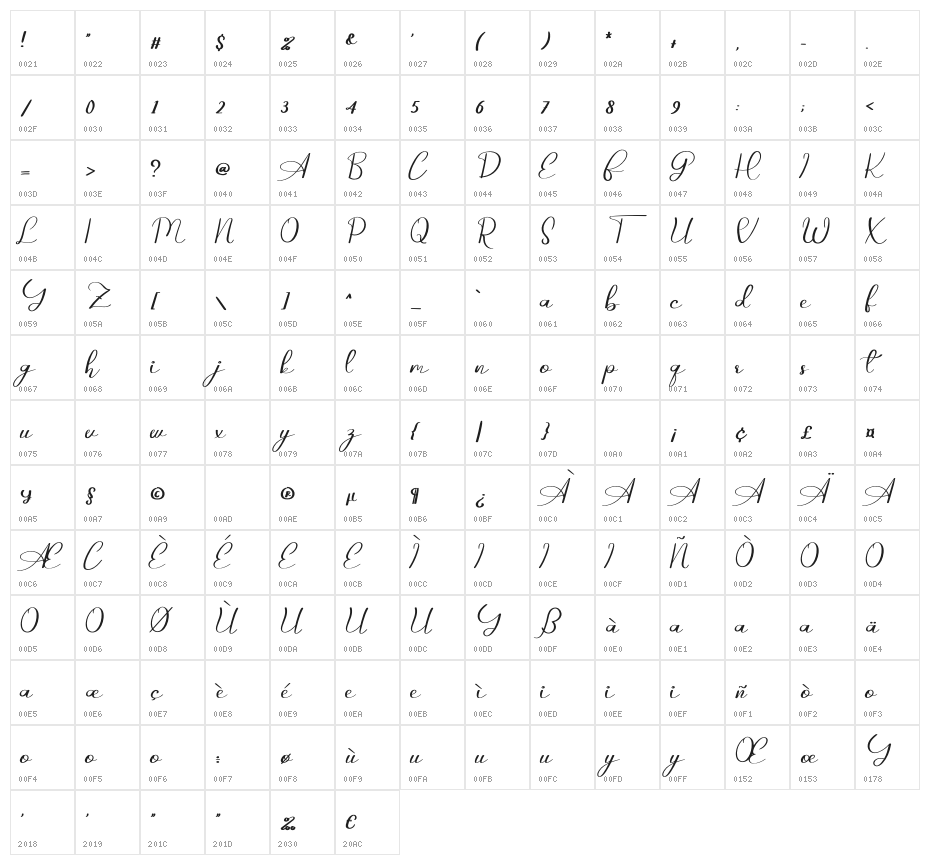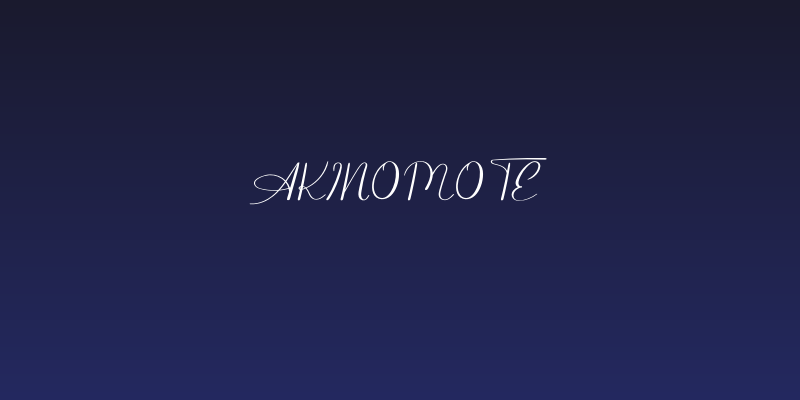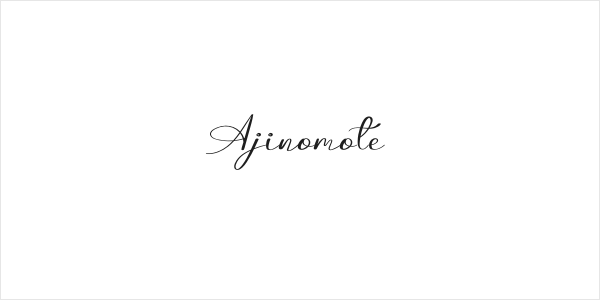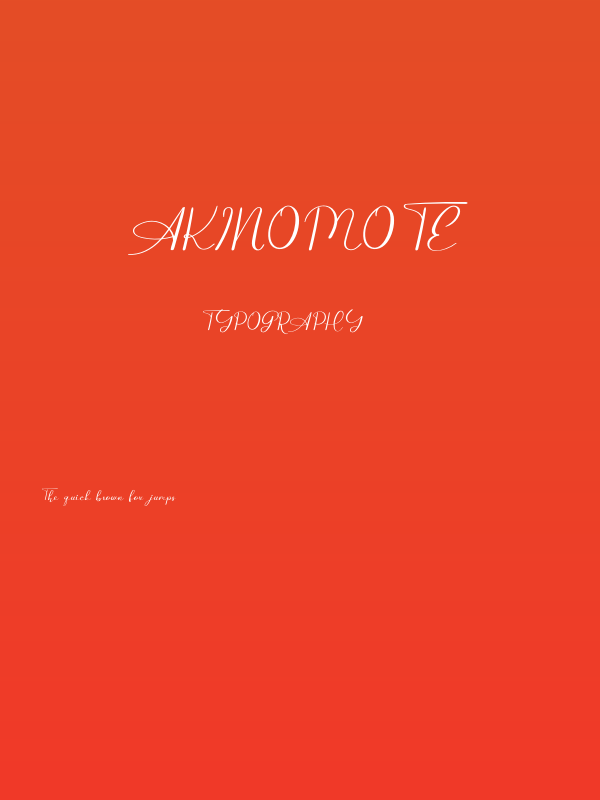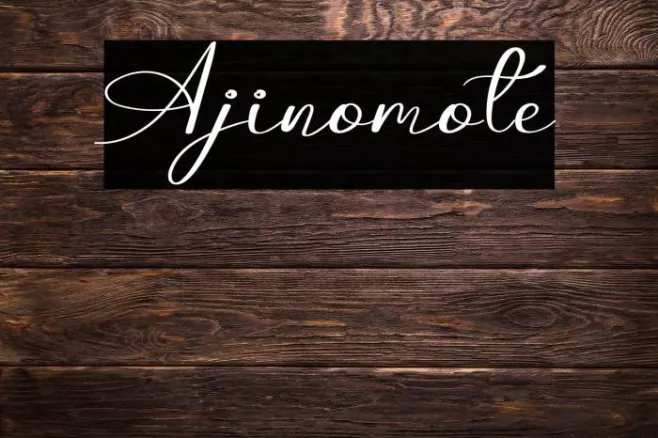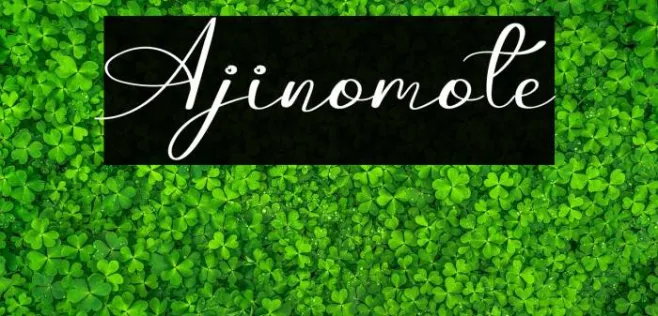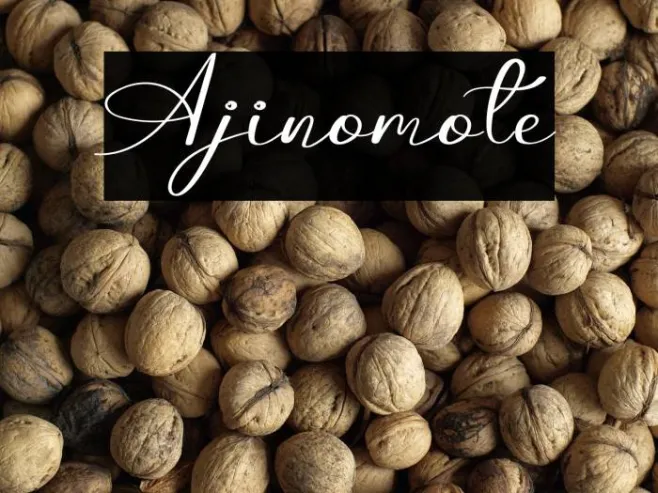
Ajinomote Font
Ajinomote Description
This elegant script font features flowing, cursive letterforms with a graceful and sophisticated appearance. The uppercase letters are characterized by their sweeping curves and loops, giving a sense of fluidity and movement. The lowercase letters maintain a consistent style, with smooth connections between characters, enhancing readability while preserving the decorative nature of the script. The numerals and special characters are designed to complement the alphabet, with similar curves and flourishes. This font exudes a sense of refinement and is ideal for projects that require a touch of elegance and class.